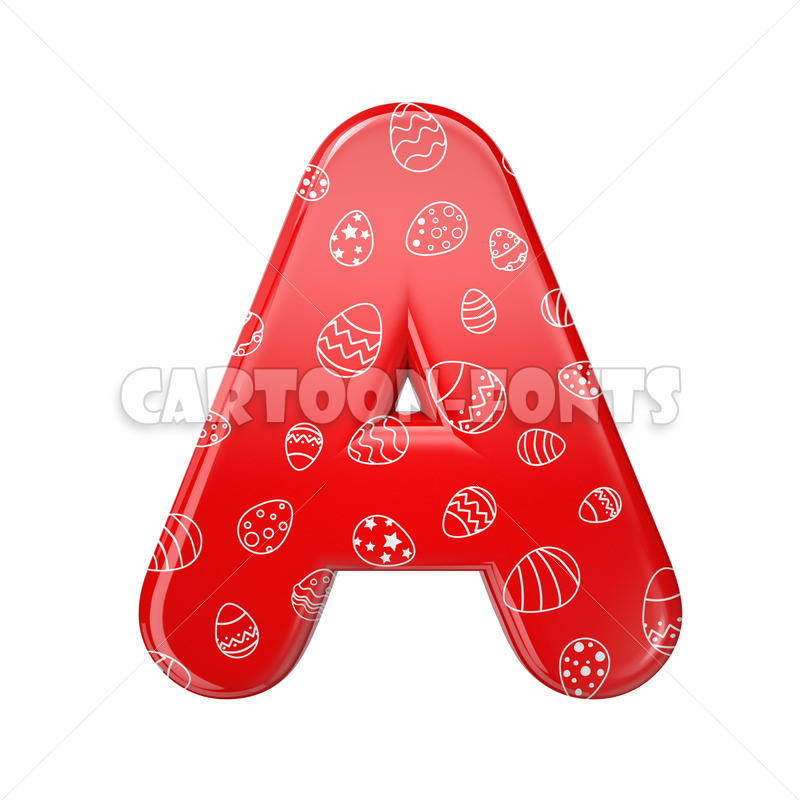
red and white celebration font A - Large 3d letter
red and white celebration font A
red and white celebration font A illustration against a white background.
This is the perfect image for creative projects linked to Easter, events or fest thematics.